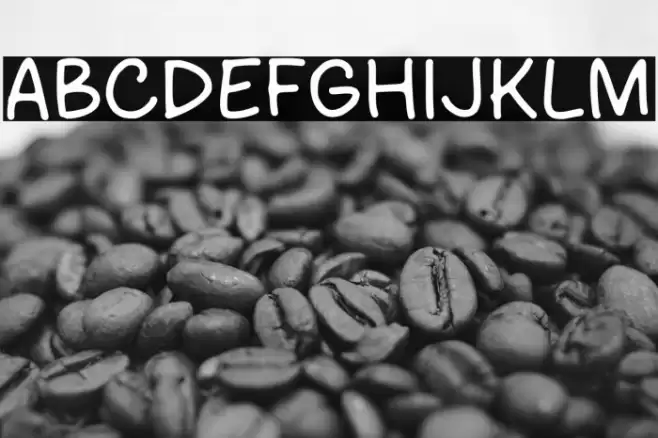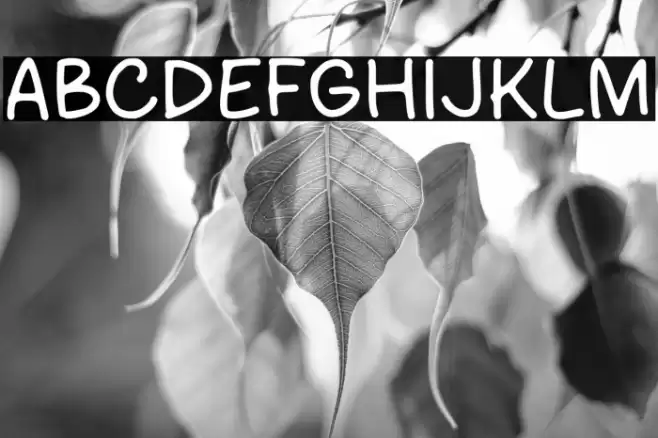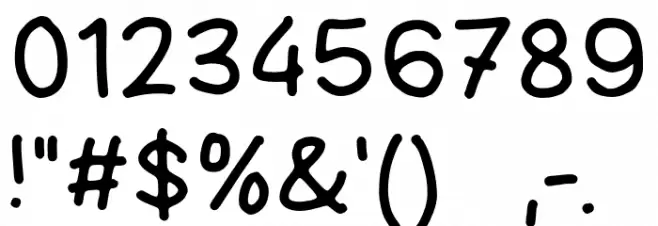
Cloudy Bright Font
Cloudy Bright Description
This playful and casual font features rounded, hand-drawn characters that convey a friendly and approachable feel. The letters are slightly uneven, giving it a whimsical and informal appearance, reminiscent of handwriting. The strokes are consistent in thickness, providing a uniform look across all characters. This font includes both uppercase and lowercase letters, numerals, and a variety of special characters, making it versatile for different uses. Its simplicity and charm make it suitable for projects that require a personal touch.
A playful, hand-drawn font with rounded, casual characters from Uncategorized fonts.
- Font: Cloudy Bright
- Proposed Projects: Ideal for children's books, greeting cards, casual branding, and social media graphics.
- Overall Style: Casual
- Use Case: Logos, Headlines, Informal Text